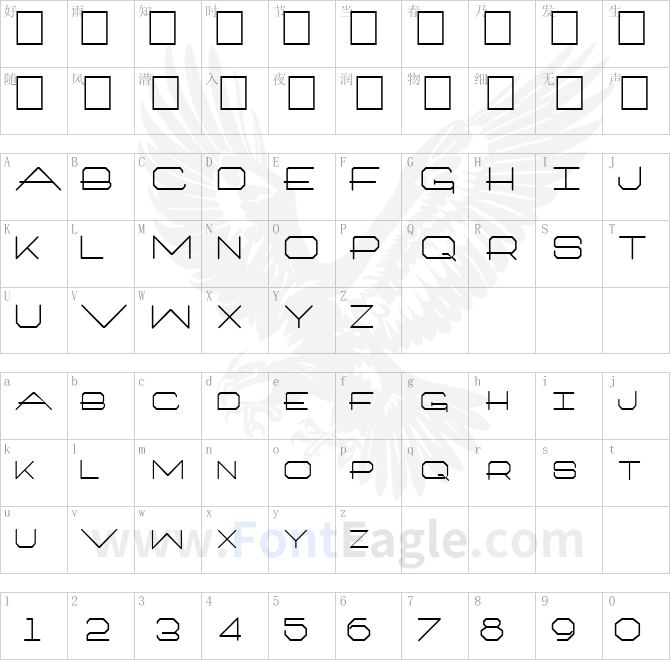
- Font name:FZ JAZZY 27
- Font Subfamily ID:FZ JAZZY 27
- Font Full Name:FZ JAZZY 27
FZ-JAZZY-27 is a great font, widely used in graphic design, single-page menu design, poster design and other fields, and is deeply loved by designers.FZ-JAZZY-27 download.